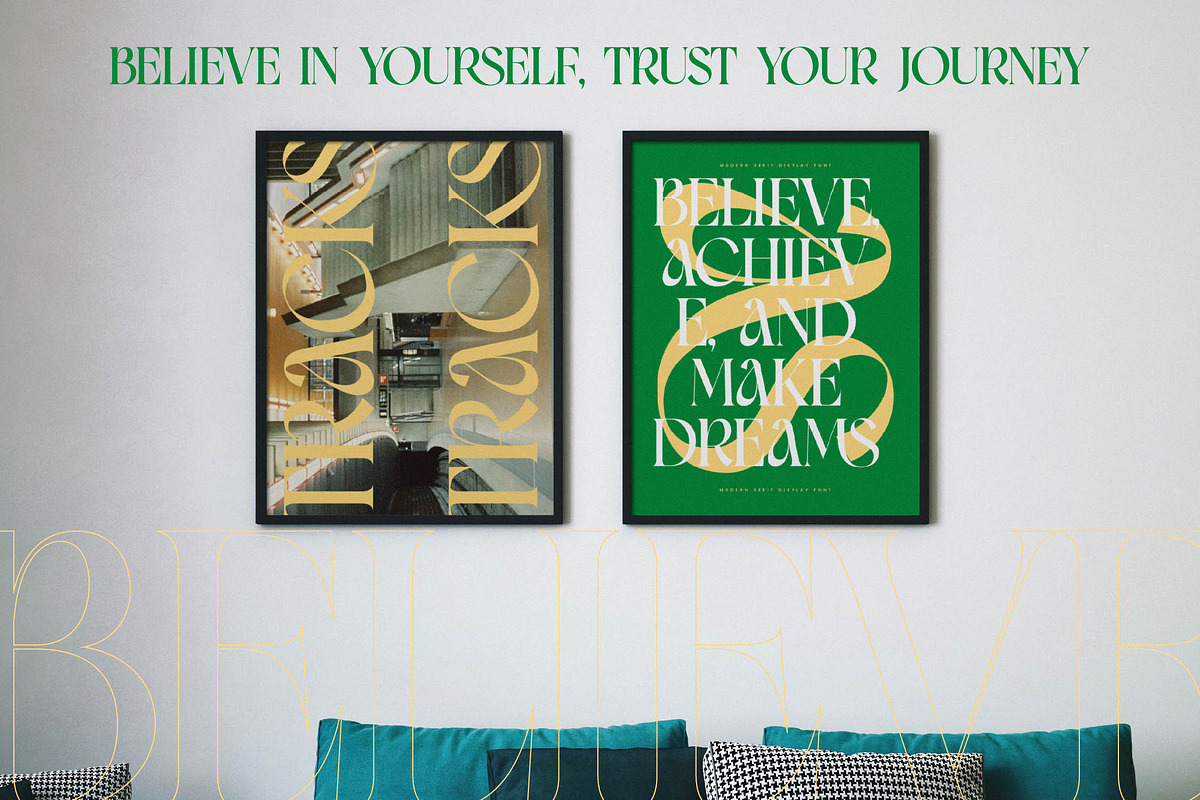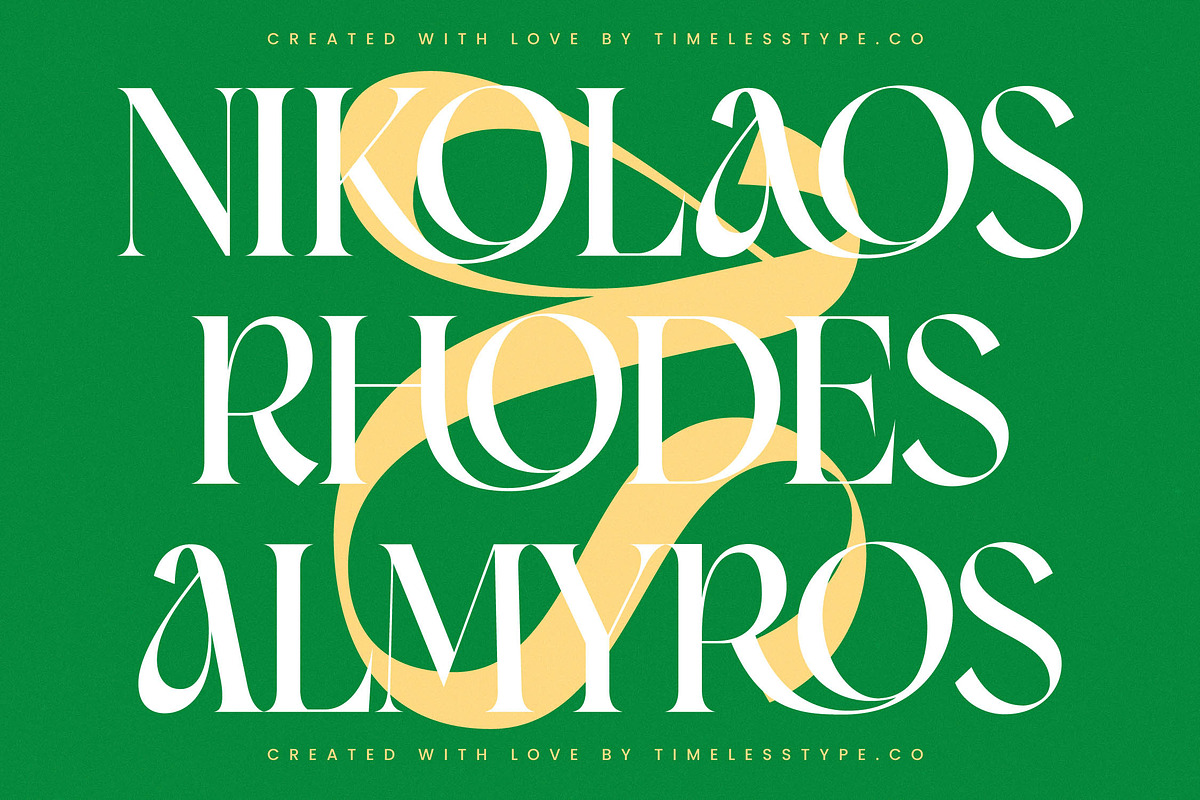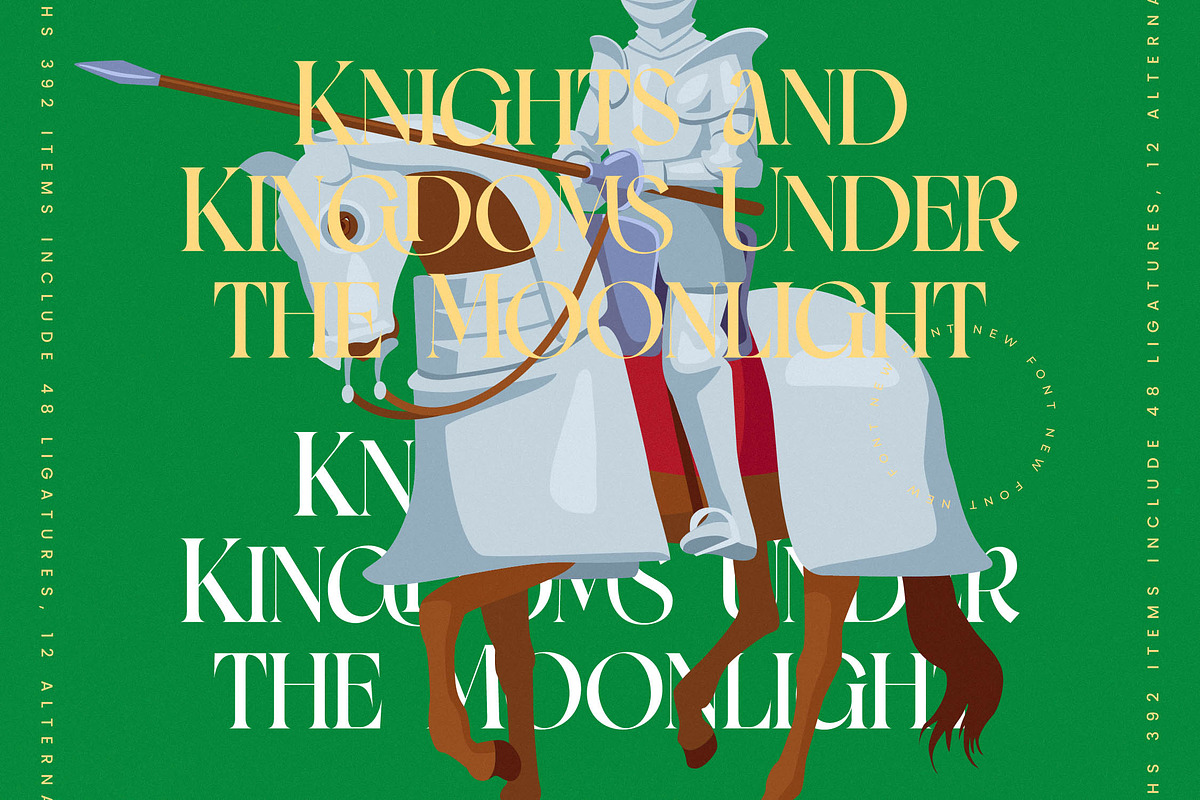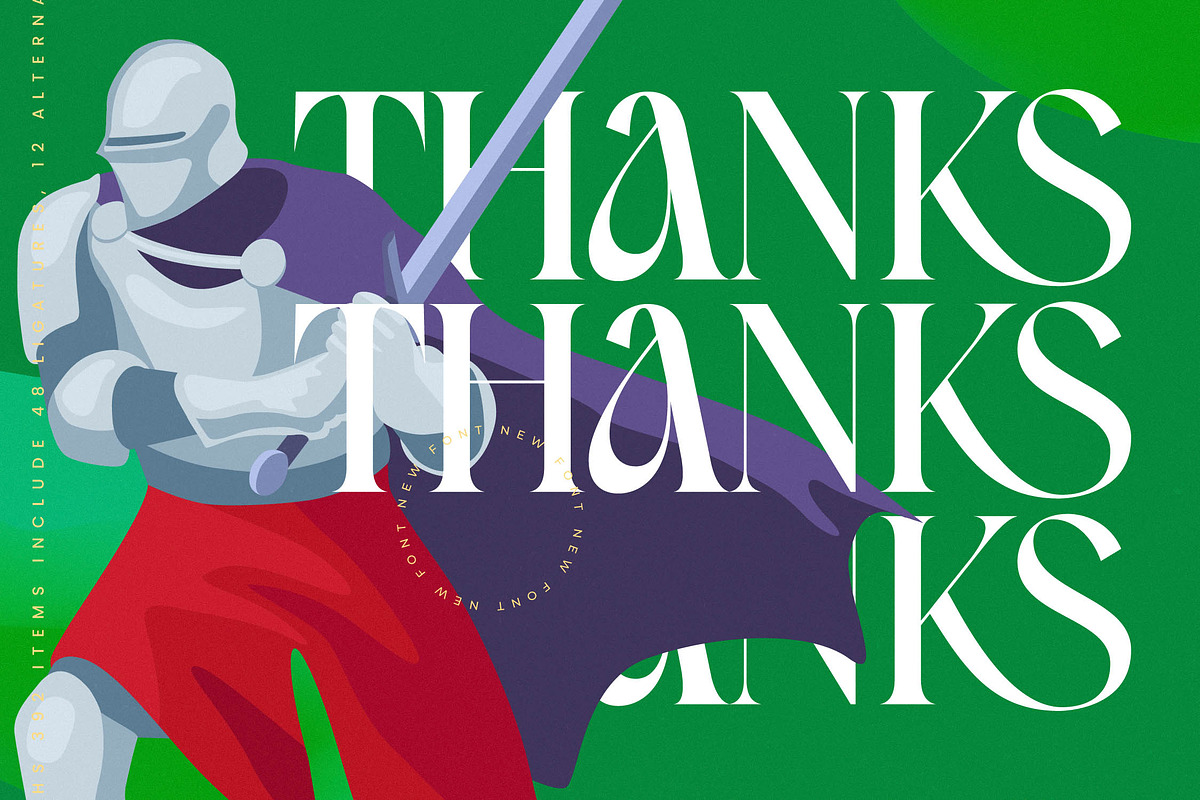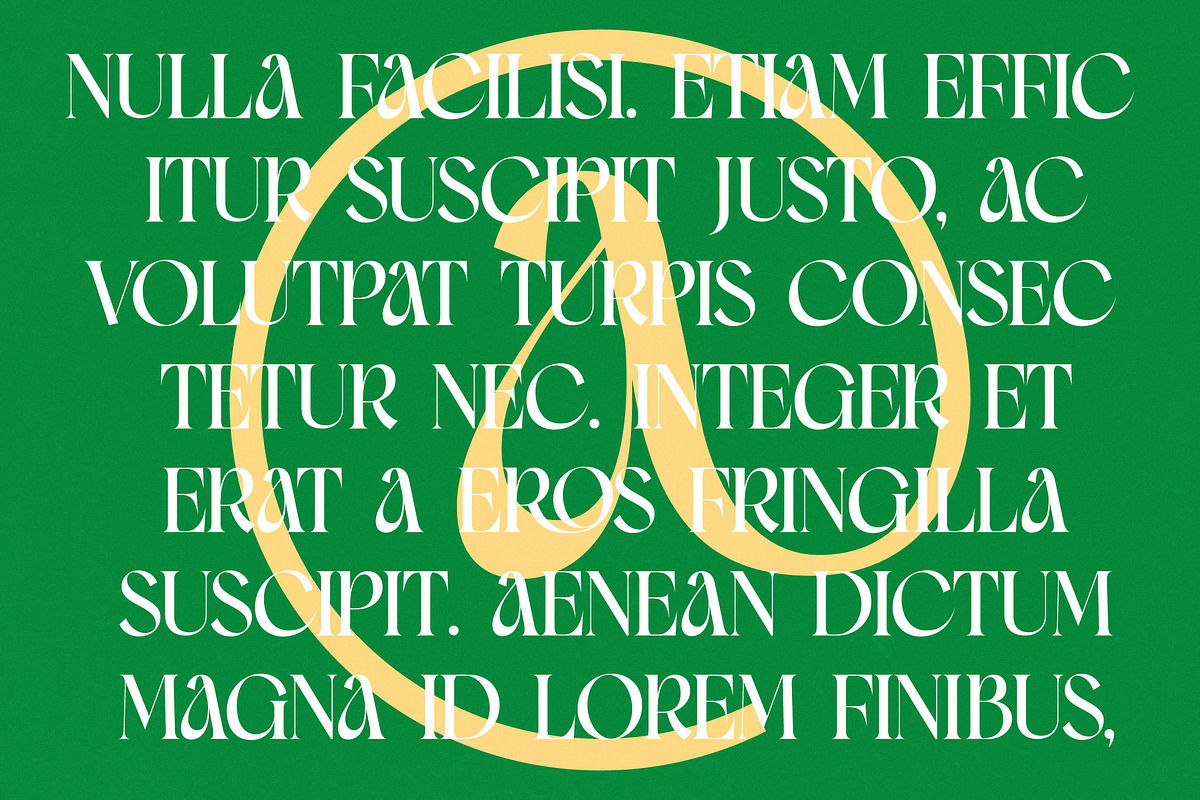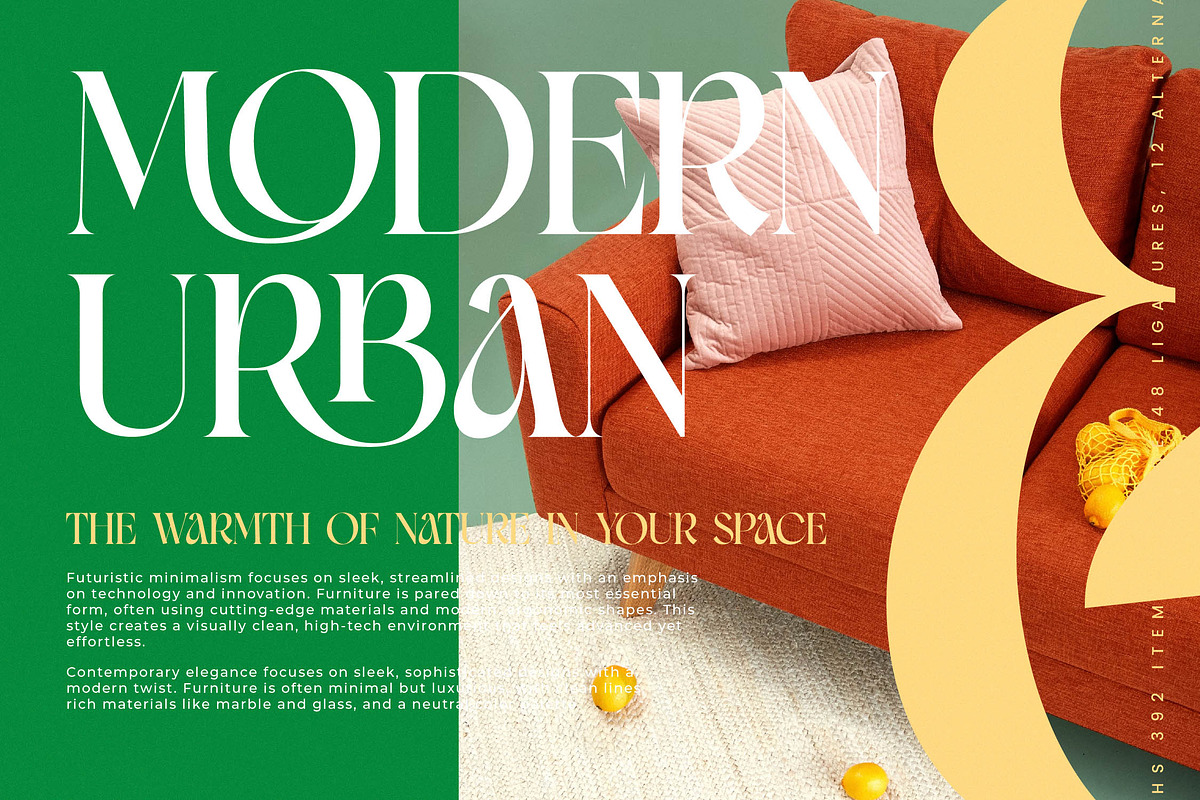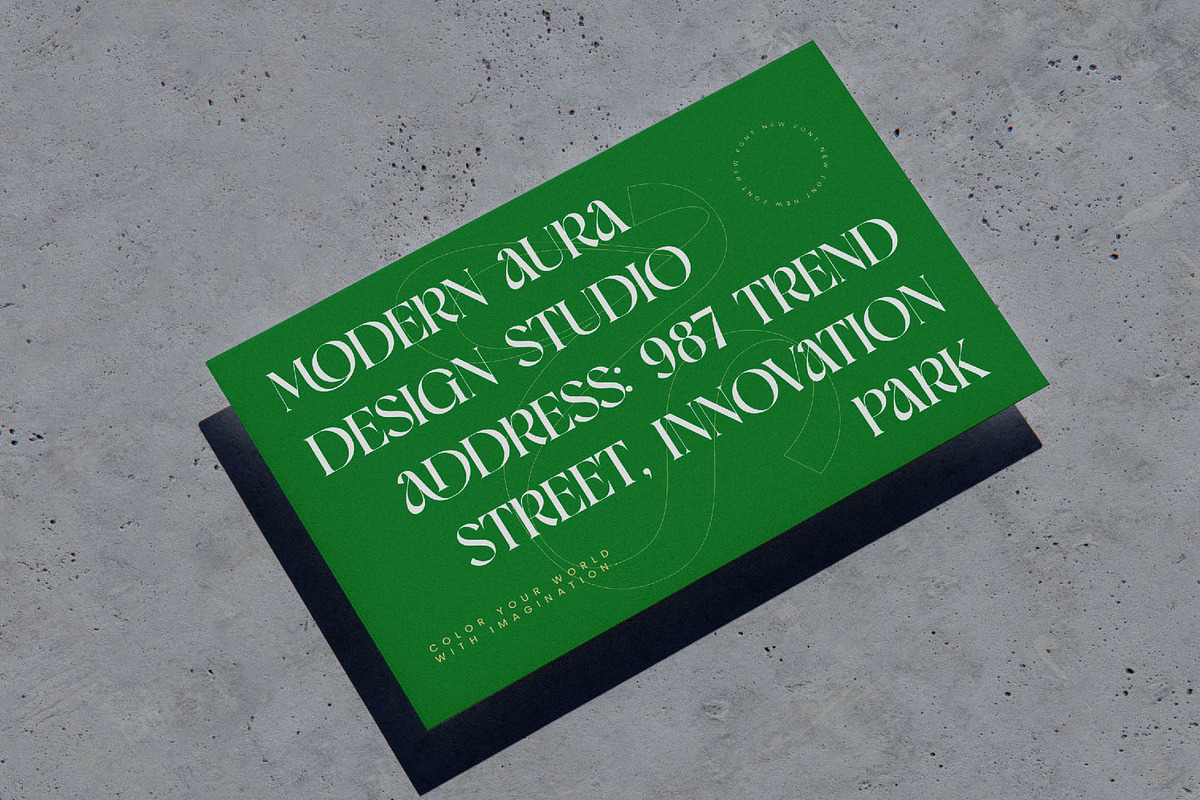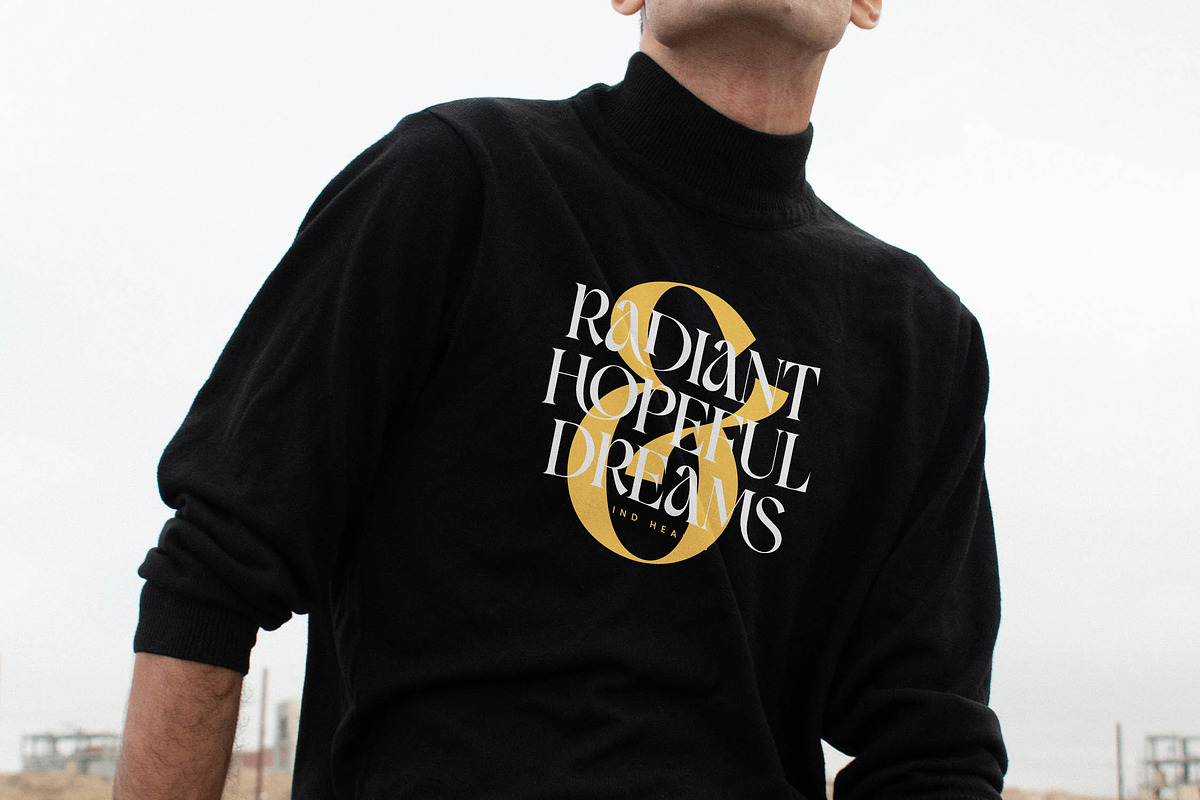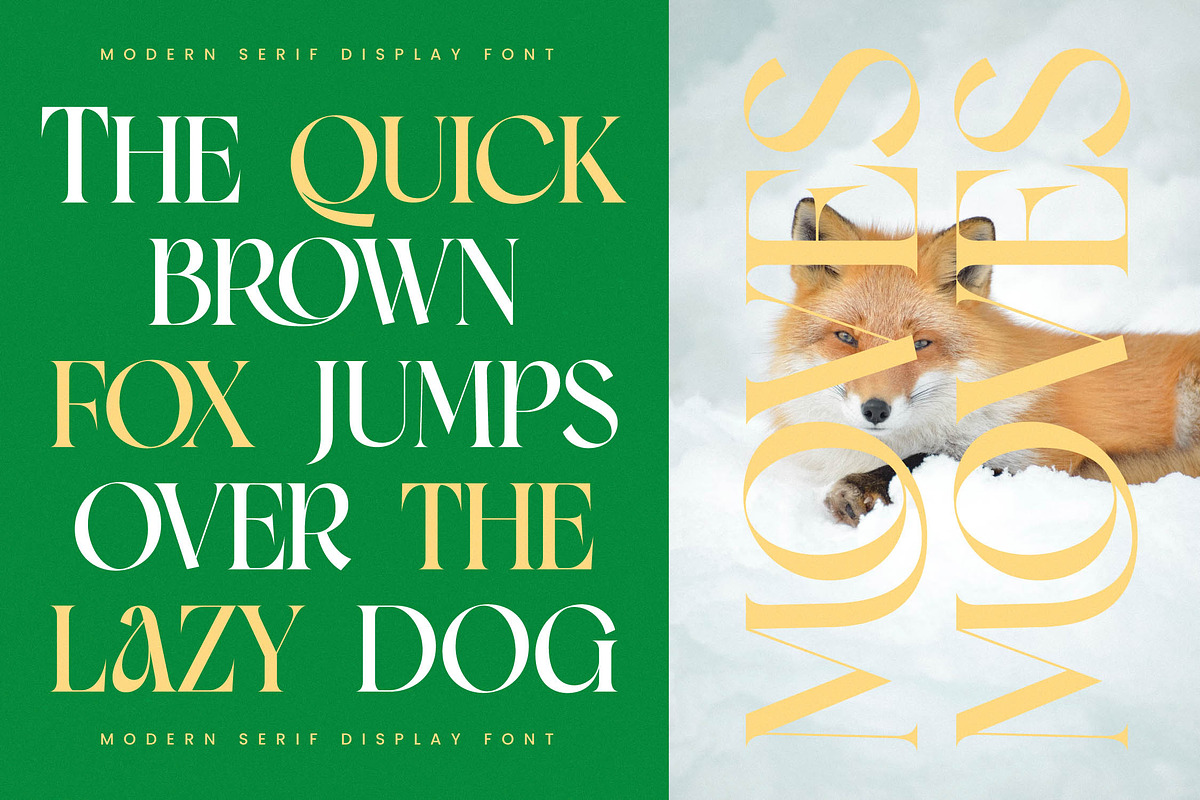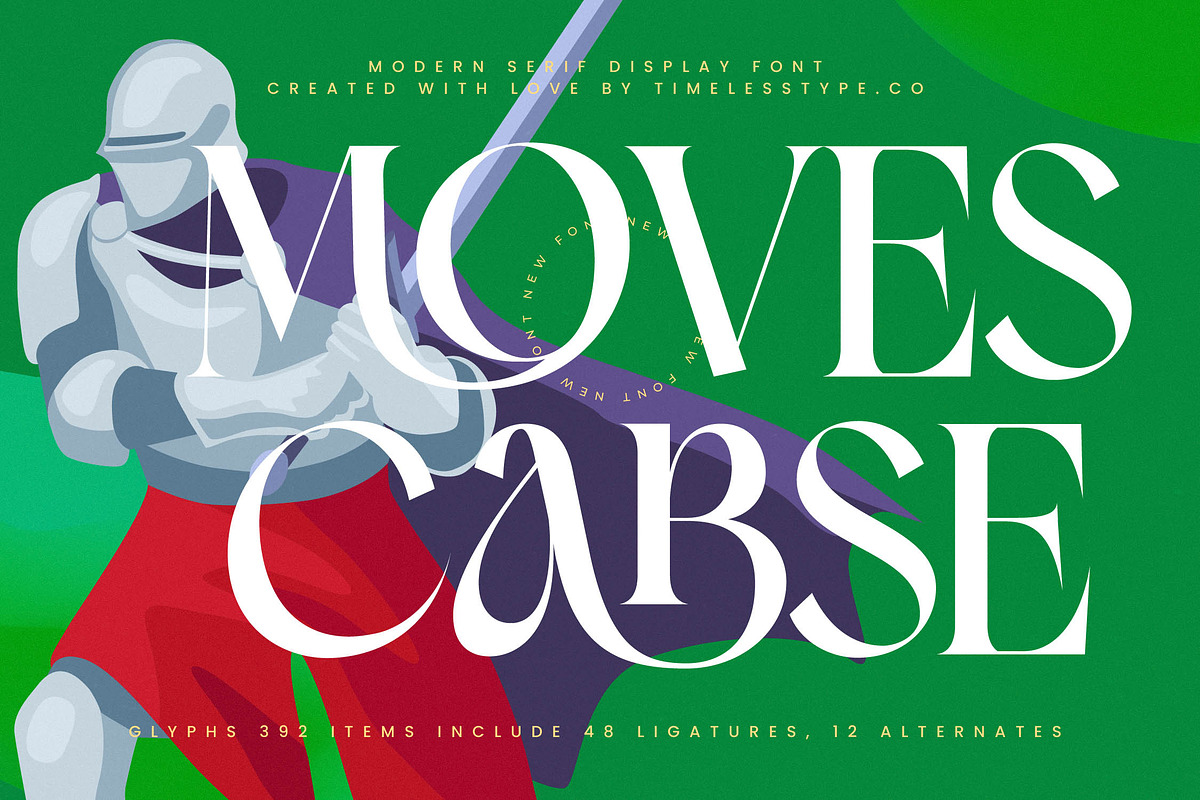
Moves Cabse Modern Display Serif
Discover the rhythmic elegance of Moves Cabse, a font that dances between the lines of classical heritage and avant-garde sophistication. It is a visual symphony designed to command attention while maintaining an air of effortless grace in every letterform.
Inspired by the fluid motion of a hero's cape and the sharp precision of a knight’s blade, this typeface draws from legendary silhouettes to create something entirely contemporary. It captures the essence of a modern fairytale where strength meets delicate artistry for a timeless aesthetic.
This modern serif display is the ultimate tool for designers seeking luxury typography that does not compromise on legibility. With its high-contrast serif construction, it delivers an unmistakable editorial font quality that provides an immediate branding impact for high-end projects.
Staying ahead of the modern serif trend, this typeface bridges the gap between vintage charm and minimalist aesthetics. It fits perfectly within the current landscape of editorial display fonts, offering character-driven typography that feels fresh, uniquely authoritative, and visually engaging.
Transform your creative vision into reality with a font tailored for high-end logo design and comprehensive branding identity. It excels in editorial layouts, sophisticated packaging, romantic wedding stationery, and the fast-paced world of high-street fashion advertising.
This expansive kit comes loaded with over 48 unique ligatures, 12 creative alternates, and decorative swashes to provide endless customization options. Full multilingual support ensures your message reaches a global audience with a complete set of international characters for seamless communication.
- Ligature 48 Alternate 12